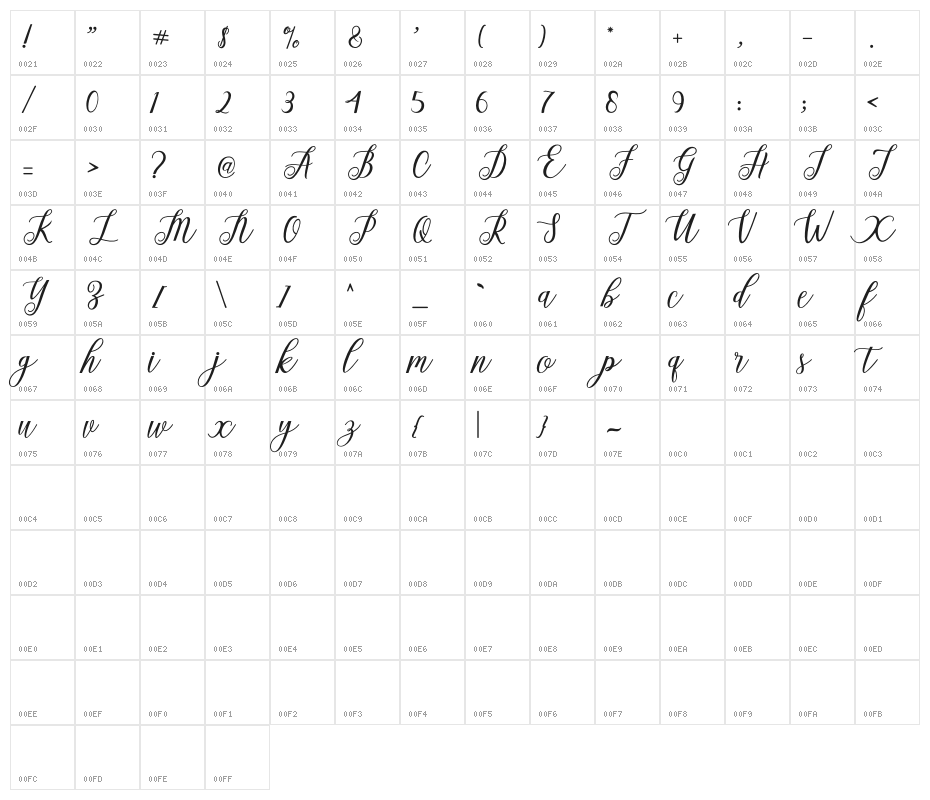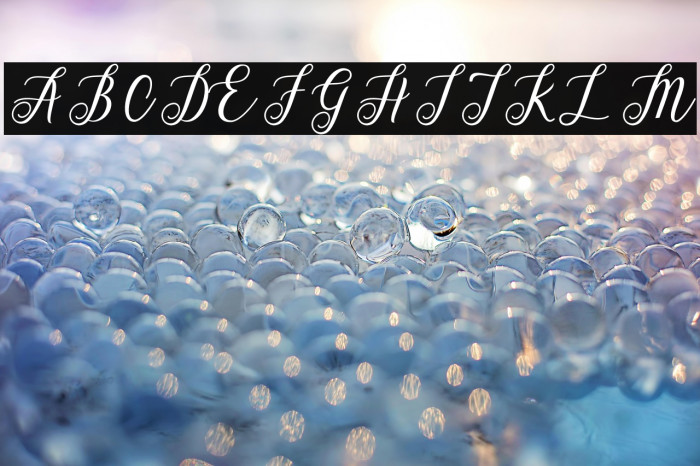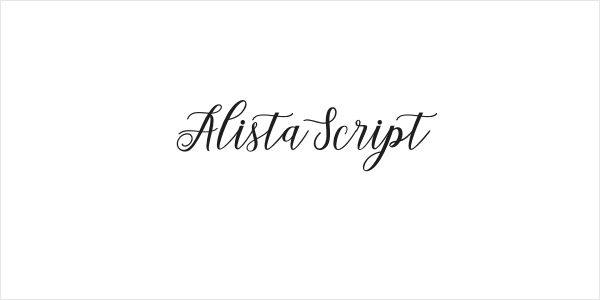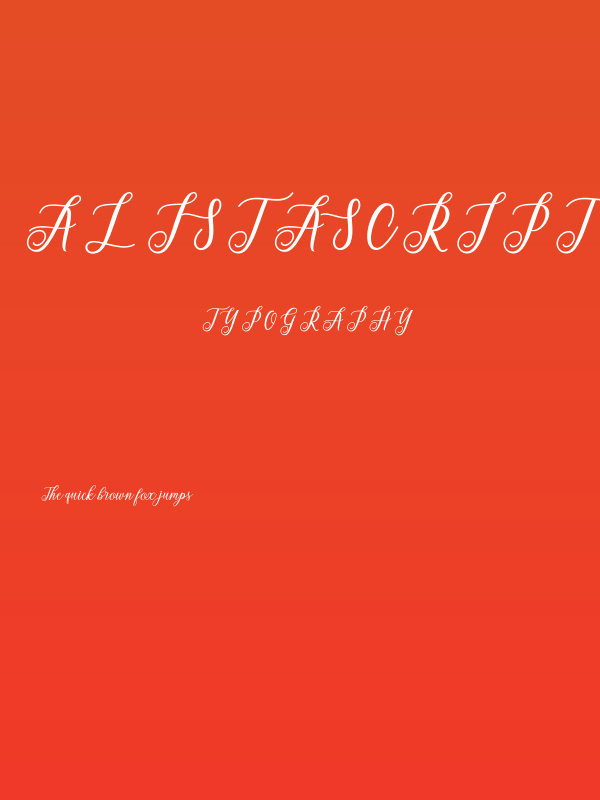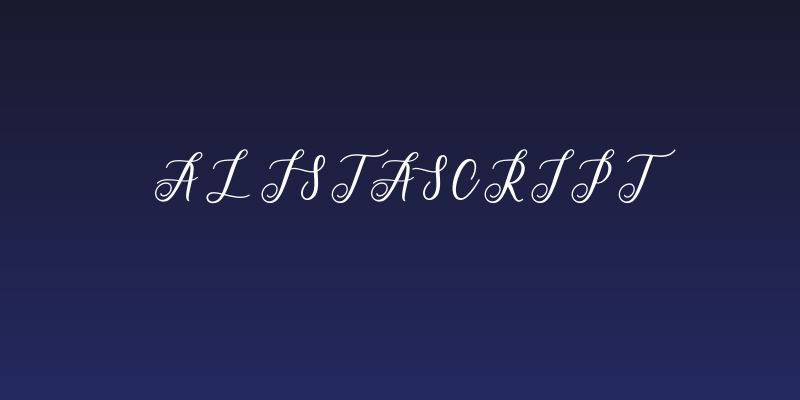
AlistaScript Font
This elegant script font features flowing, cursive letterforms with a sophisticated and graceful appearance. The uppercase letters are characterized by their intricate loops and swashes, adding a touch of formality and flair. The lowercase letters maintain a smooth, connected style, enhancing readability while preserving the font's decorative nature. The numerals are consistent with the script style, featuring slight curves and a balanced design. Special characters are thoughtfully integrated, maintaining the overall aesthetic. This font exudes a sense of elegance and refinement, making it suitable for formal and decorative applications.
| Overall Style | Elegant |
| Use Case | Headlines, Invitations, Logos |
| Proposed Projects | Ideal for wedding invitations, elegant branding, greeting cards, and luxury product packaging. |